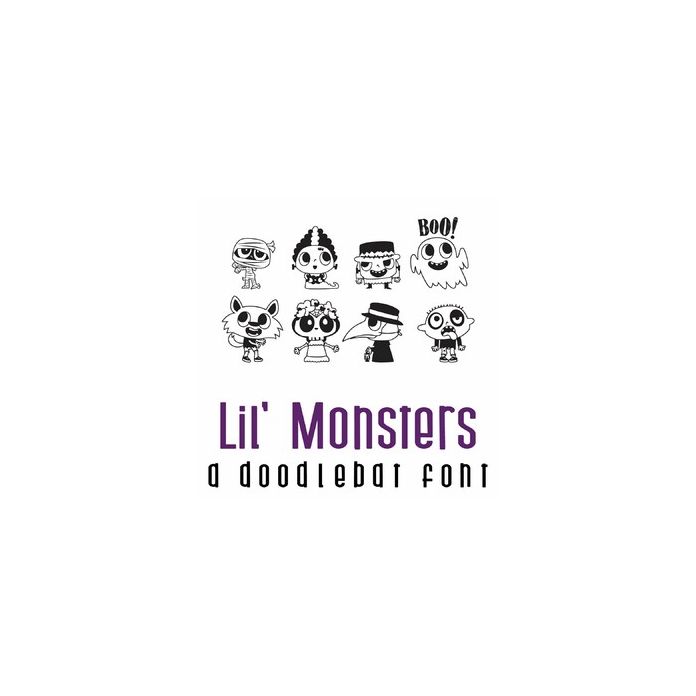
Lil' Monsters Doodlebat Font
This fun doodlebat font features 26 little monsters perfect for Halloween, cards, crafts, gifts, decor, planner stickers, scrap book pages and more!